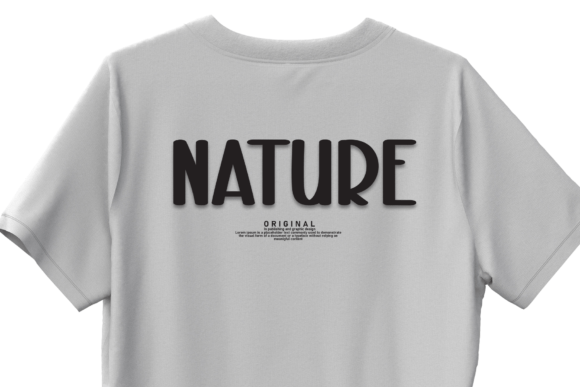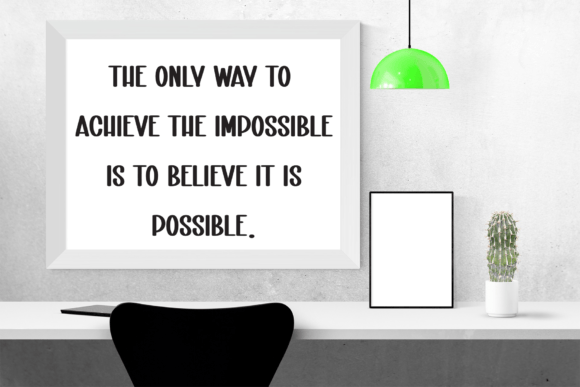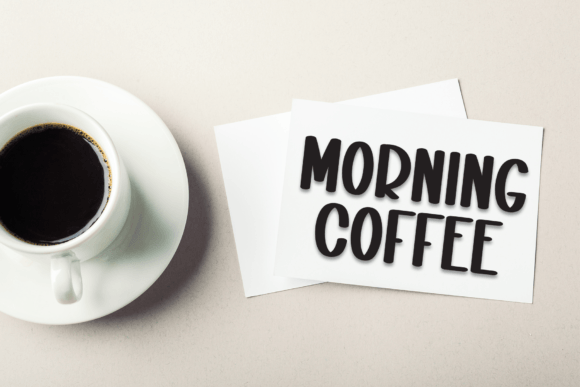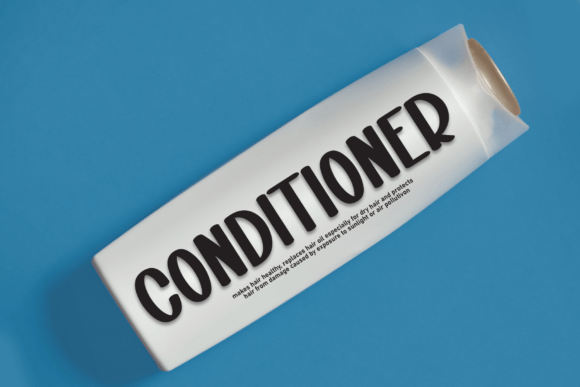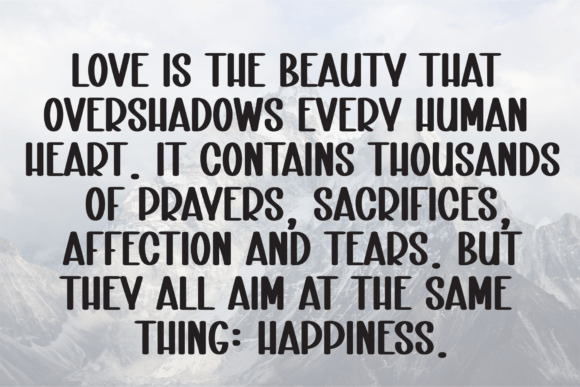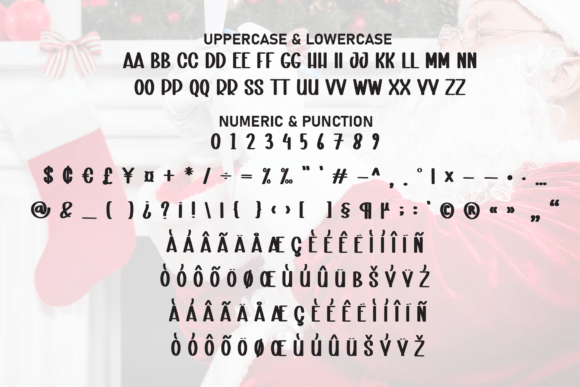
Introducing Daily Santa: The Ultimate Holiday Font for Designers and Crafters
Are you looking for a font that captures the spirit of the holiday season? Look no further than Daily Santa, a bold and easy-to-read display font that’s perfect for holiday decorations, greeting cards, and any cheerful designs. With its fun and festive style, Daily Santa is sure to bring a smile to everyone’s face.
A Font that’s Full of Cheer
Daily Santa is a display font that’s designed to make a statement. Its simple lines and bold design make it easy to read, even from a distance. This font is perfect for designers and crafters who want to add a touch of holiday cheer to their projects. Whether you’re creating a festive holiday card, a fun Christmas decoration, or a cheerful winter-themed design, Daily Santa is the perfect choice.
What Makes Daily Santa So Special?
So, what sets Daily Santa apart from other holiday fonts? Here are just a few things that make it special:
- Bold and Easy to Read: Daily Santa is a bold font that’s easy to read, even for those with vision impairments. This makes it perfect for signage, posters, and other designs where readability is key.
- Fun and Festive Style: Daily Santa has a fun and festive style that’s sure to bring a smile to everyone’s face. Its playful design makes it perfect for holiday decorations, greeting cards, and other cheerful designs.
- Simple Lines: The simple lines of Daily Santa give it a friendly look that’s approachable and inviting. This font is perfect for designers and crafters who want to create designs that feel warm and welcoming.
Using Daily Santa in Your Designs
Daily Santa is a versatile font that can be used in a wide range of designs. Here are just a few ideas to get you started:
- Holiday Cards: Use Daily Santa to create festive holiday cards that are sure to impress your friends and family.
- Christmas Decorations: Add a touch of holiday cheer to your Christmas decorations with Daily Santa. This font is perfect for creating festive signs, banners, and other decorations.
- Winter-themed Designs: Daily Santa is perfect for winter-themed designs, such as snowflakes, snowmen, and other winter wonderland-inspired creations.
- Signage: Use Daily Santa for signage, such as holiday-themed posters, flyers, and brochures.
Tips for Getting the Most Out of Daily Santa
Here are a few tips for getting the most out of Daily Santa:
- Experiment with Colors: Daily Santa looks great in a wide range of colors, so don’t be afraid to experiment and find the perfect hue for your design.
- Pair it with Other Fonts: Daily Santa pairs well with other fonts, so try combining it with a script font or a serif font to create a unique and interesting design.
- Use it in Combination with Images: Daily Santa looks great in combination with images, such as holiday-themed illustrations or winter landscapes.